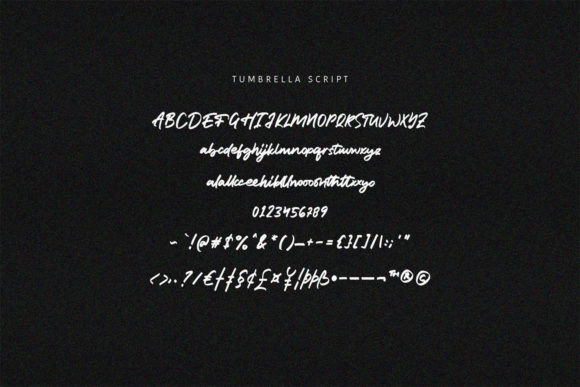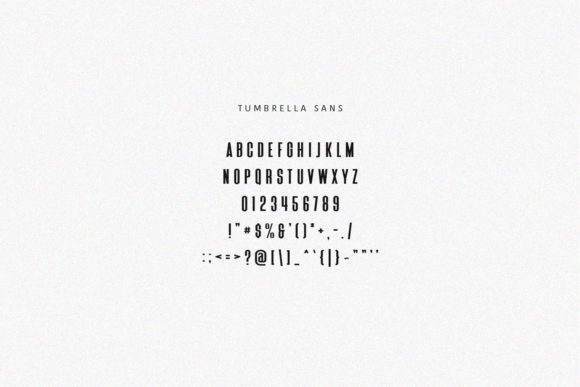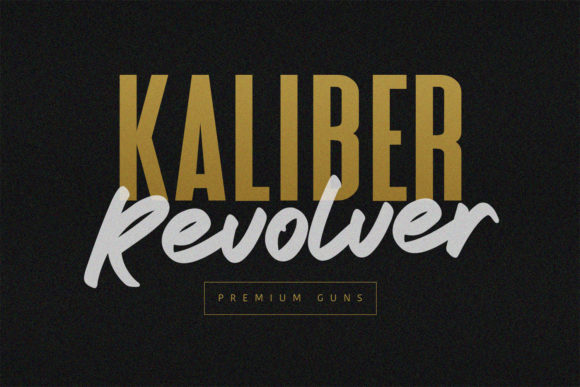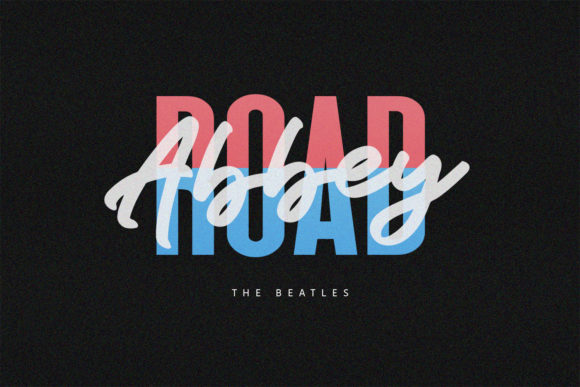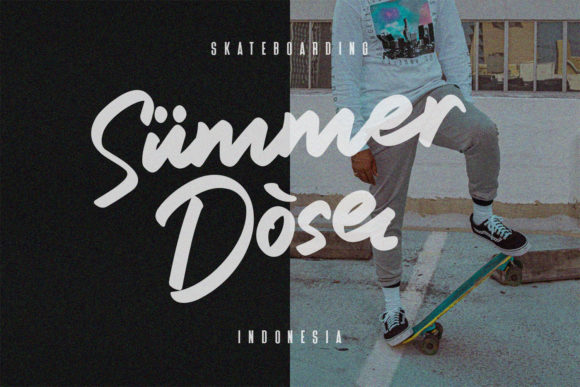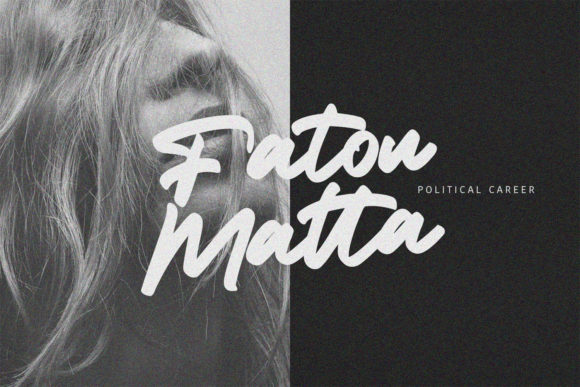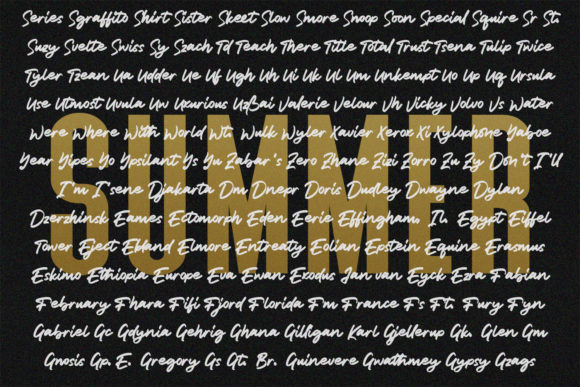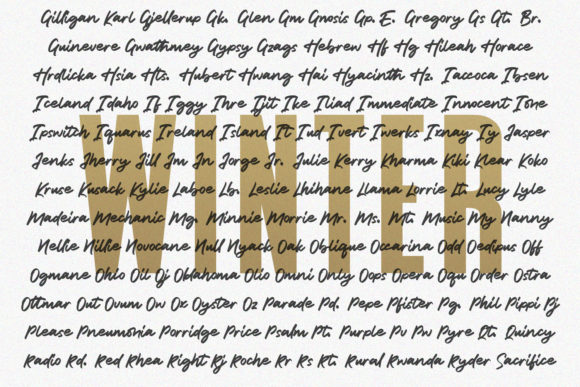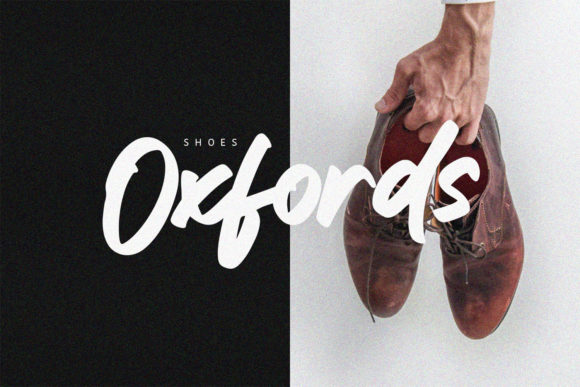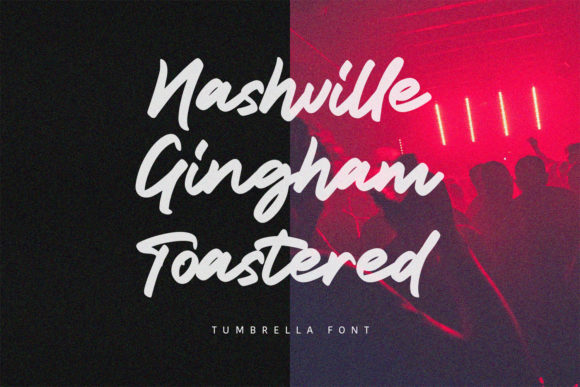
Tumbrella Font
About Tumbrella Font
Tumbrella has authentic handcrafted feel. This amazing duo font combines a beautiful script with a great sans serif style. It’s perfectly suited for signature, stationery, logos, quotes, magazine or book covers, website header, clothing, branding, packaging design and more.